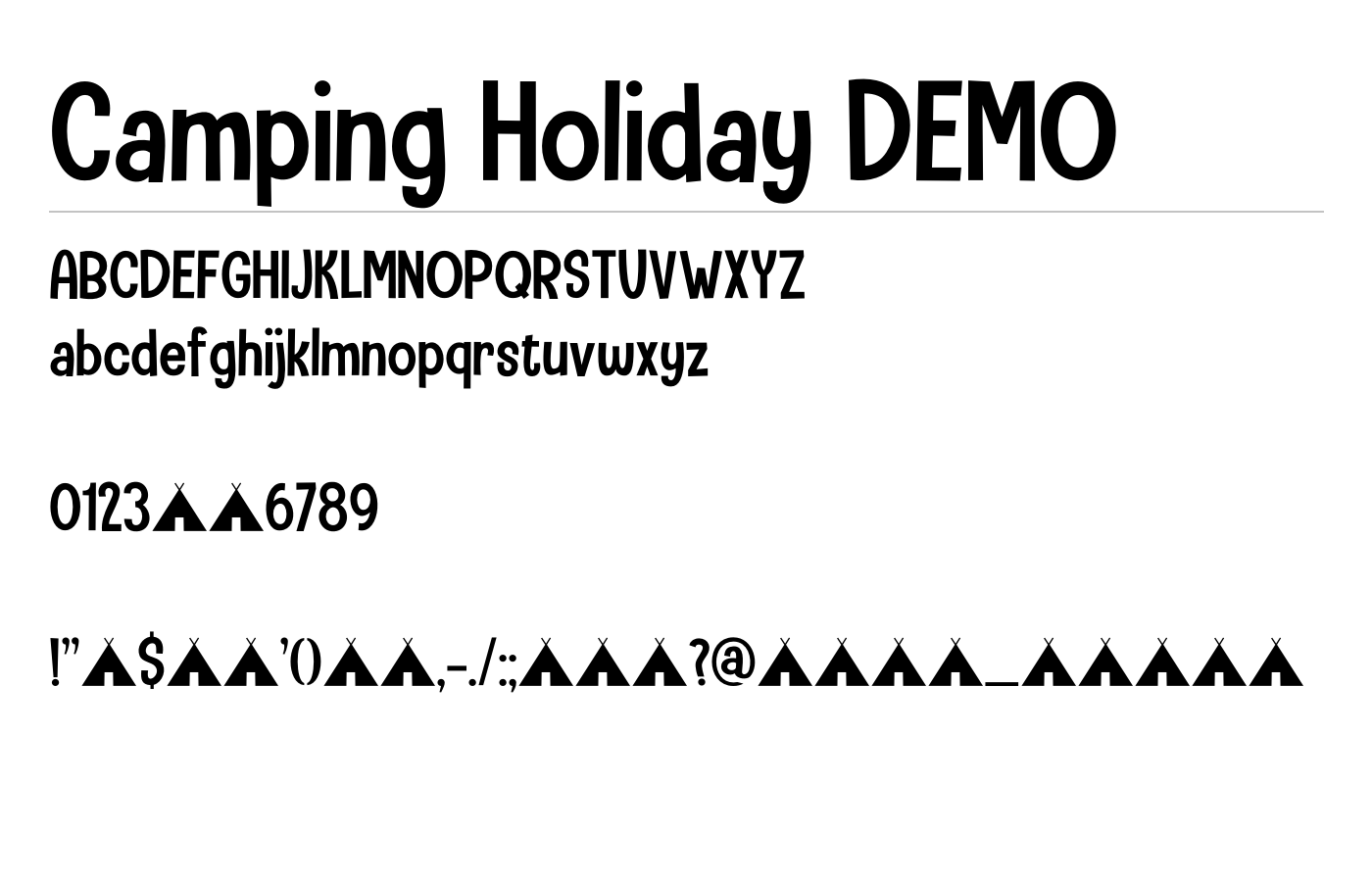
Camping Holiday DEMO is a playful and quirky sans serif font characterized by its tall, narrow letterforms and subtle irregularities that give it a handcrafted, casual feel. The font’s moderate weight and slightly uneven proportions evoke a friendly, informal vibe perfect for fun, lighthearted designs. Its unique style works well for branding, posters, and packaging aimed at outdoor, family, or adventure themes, adding a distinct personality without sacrificing readability.
Camping Holiday DEMO Font
About Camping Holiday DEMO Font